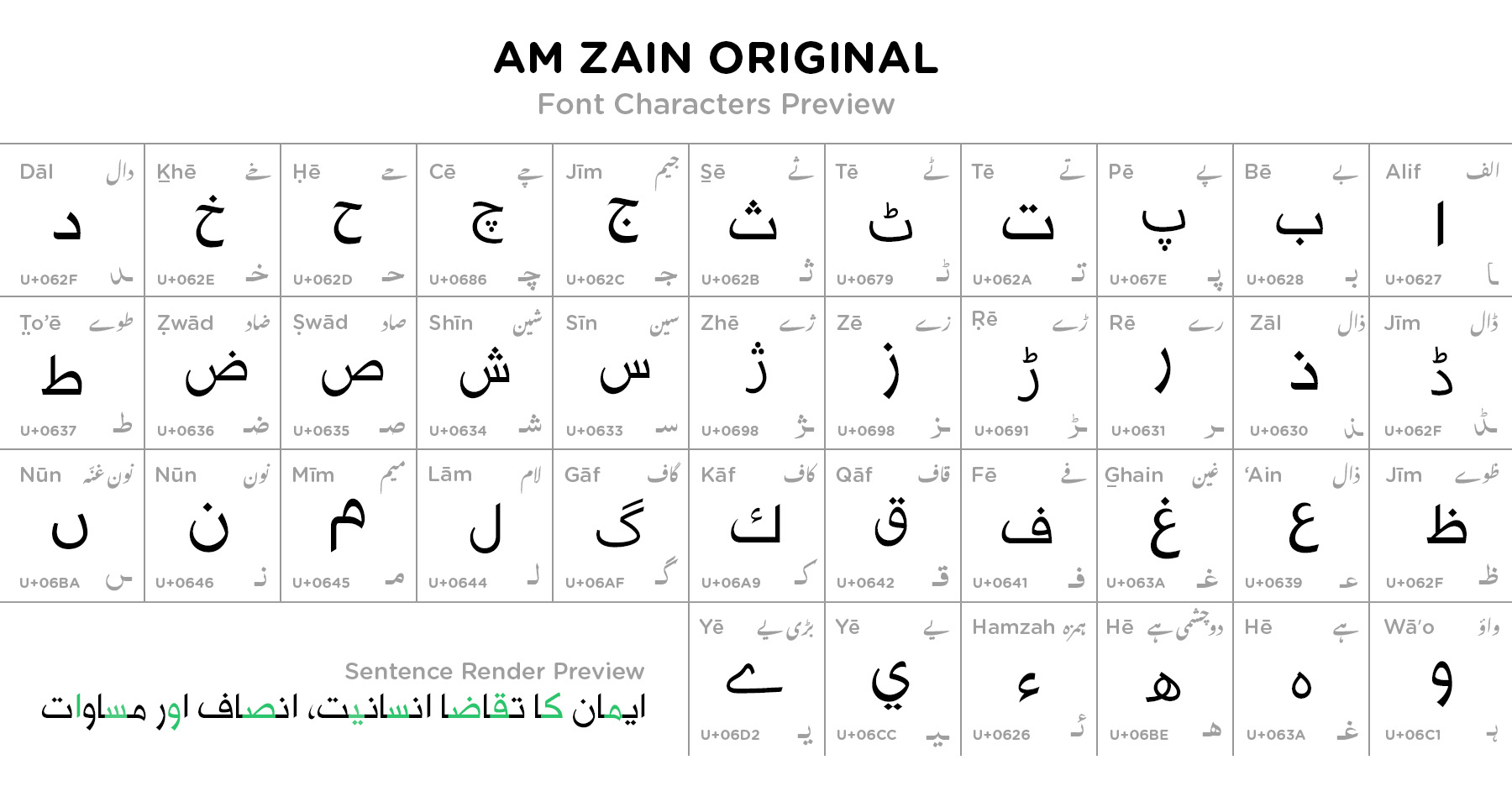
AM ZAIN ORIGINAL is a regular Arabic font with a slight Qalam Writing influence. It was released on October 7, 2017, by DigiSignFont, with design credit to Borna Rayaneh. Inspired by Naskh calligraphy, it features a horizontal emphasis and compact baseline, offering a balanced appearance with slanted edges for an uncluttered look. Offering a vast character set of 288 characters and 217 glyphs, the font ensures comprehensive language support for Arabic, Latin, and symbols, catering to diverse linguistic needs across various design projects. Its medium width and normal weight lend consistency to its appearance, making it versatile and suitable for a wide array of design applications, from digital interfaces to print media.